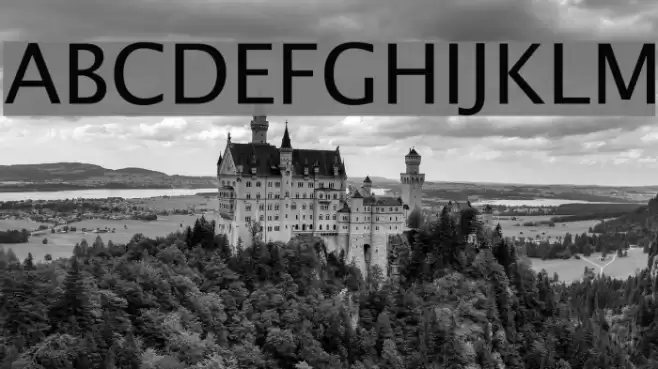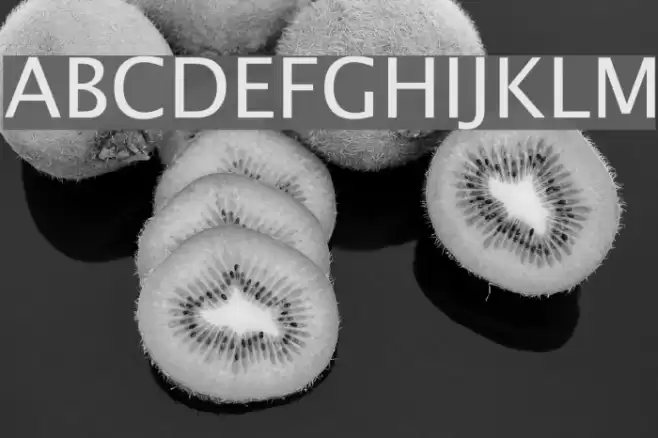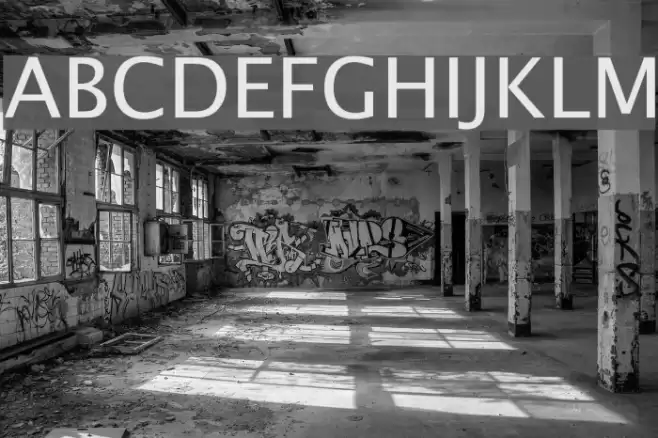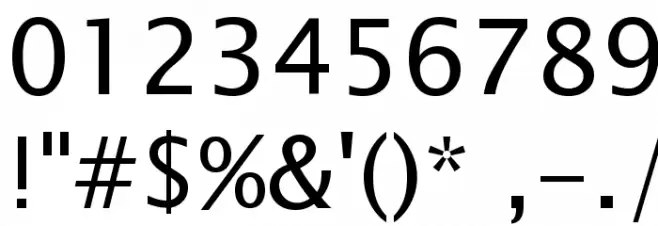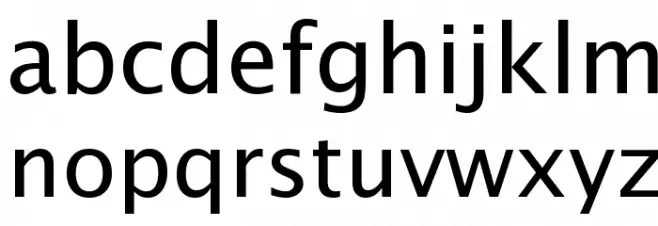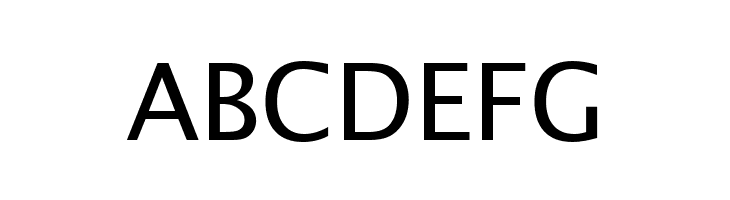
Lucida Sans Unicode Font
Lucida Sans Unicode Description
This font exhibits a clean and modern sans-serif design, characterized by its simplicity and clarity. The letters are evenly spaced, providing excellent readability. The strokes are consistent in weight, contributing to a uniform appearance across all characters. The uppercase letters are slightly taller than the lowercase, maintaining a balanced proportion. The numerals are clear and distinct, making them easily distinguishable. Special characters are well-defined, ensuring versatility in various applications. Overall, the font's straightforward design makes it suitable for a wide range of uses.
A clean, modern sans-serif font with excellent readability and uniform stroke weight from Sans Serif fonts.
- Proposed Projects: Ideal for digital interfaces, corporate branding, presentations, and educational materials.